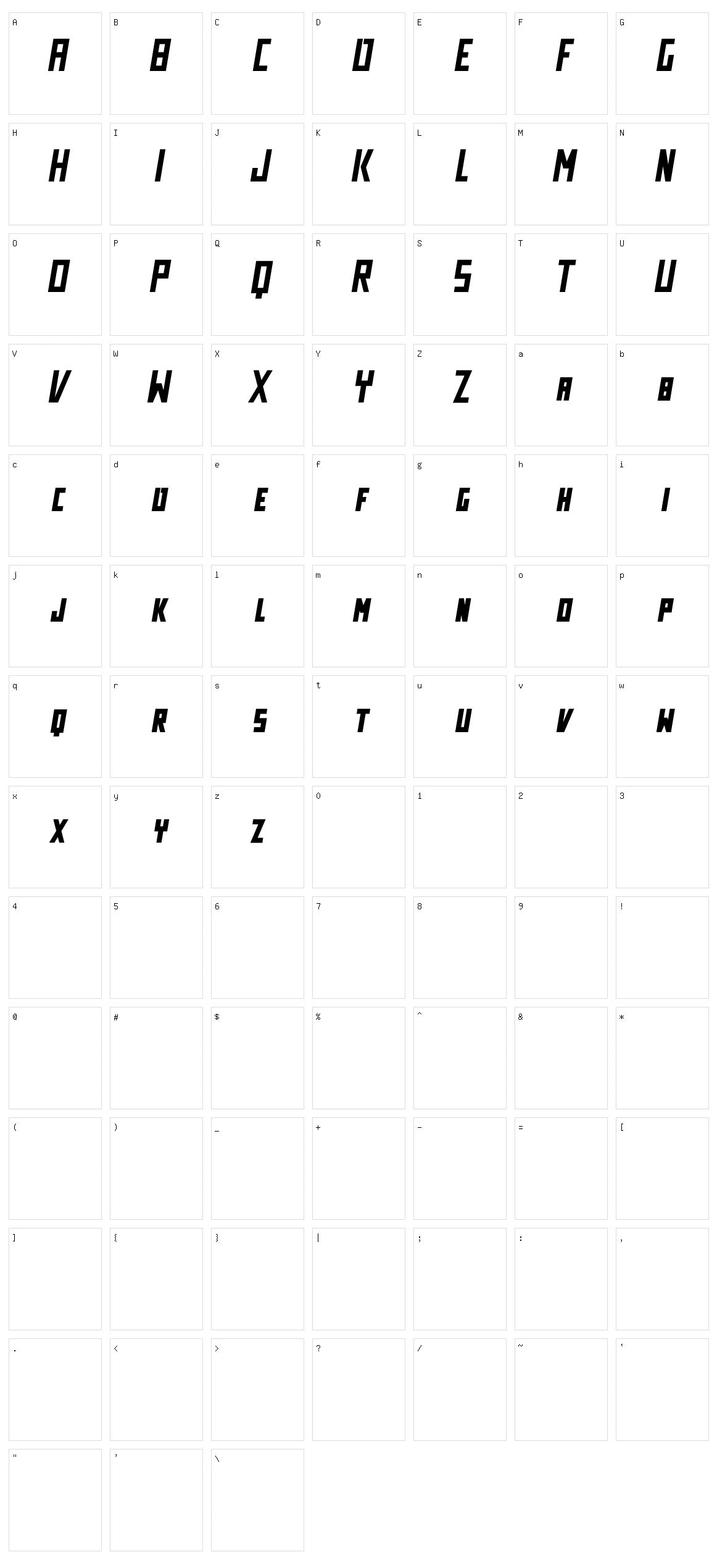
The free font Tekno is carefully designed by Moov Design Co, showcasing a thoughtful balance of creativity and usability and falls under the Square font style. When you download the ZIP file, it contains only 4.32 KB of font files, making it lightweight and quick to download. Please review the license details below to understand permitted usage and distribution rights. If license information is not available, we recommend using this font for personal projects only or contacting the author directly for commercial usage permissions.